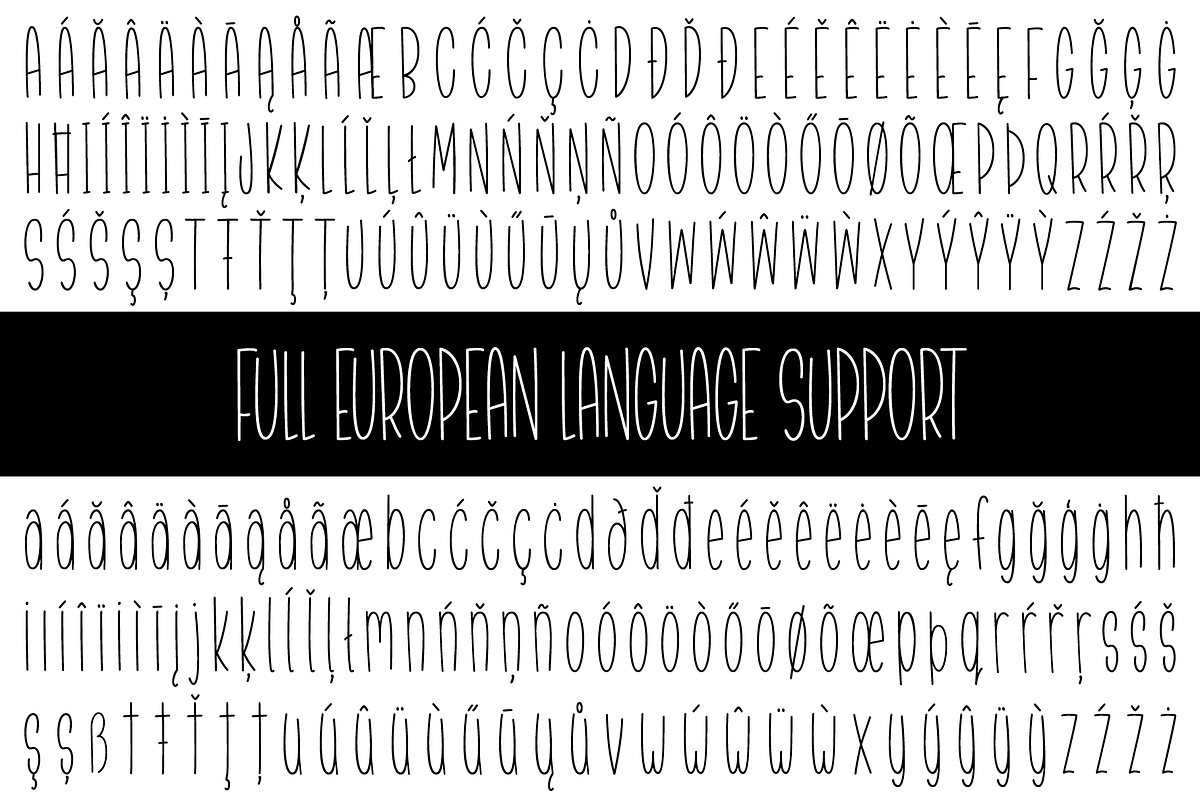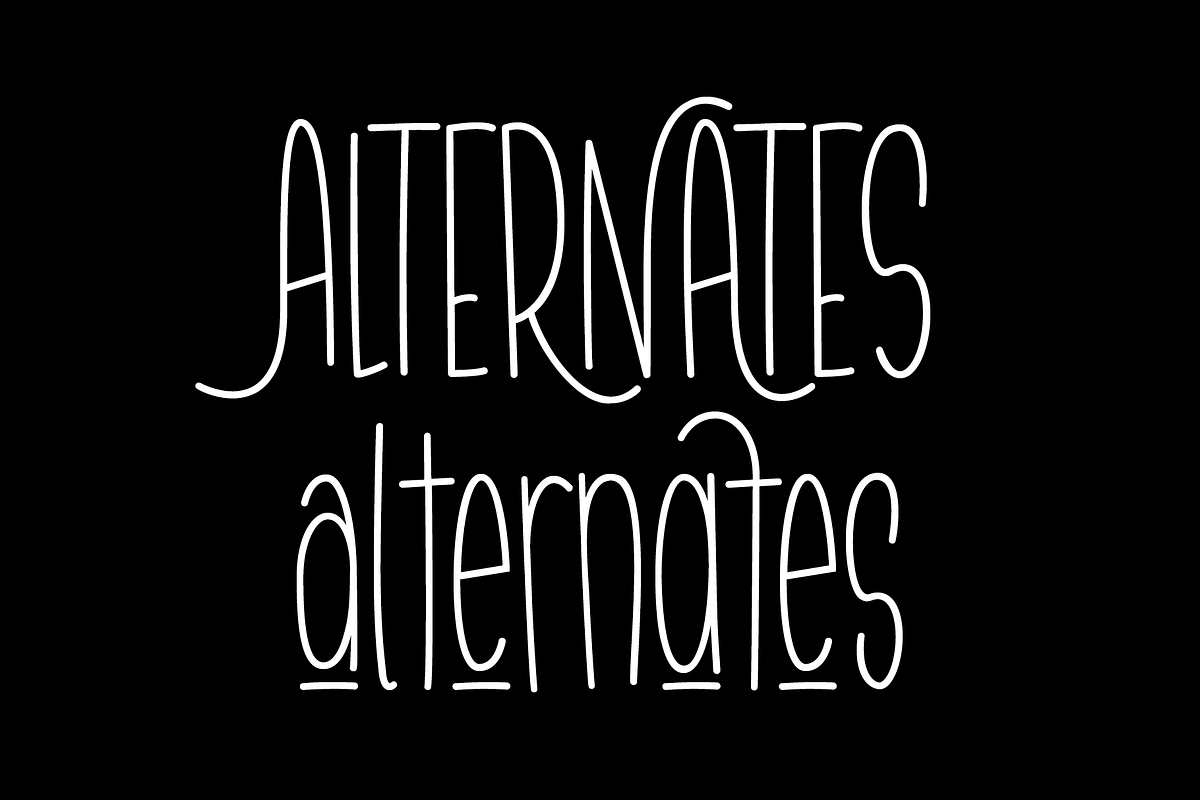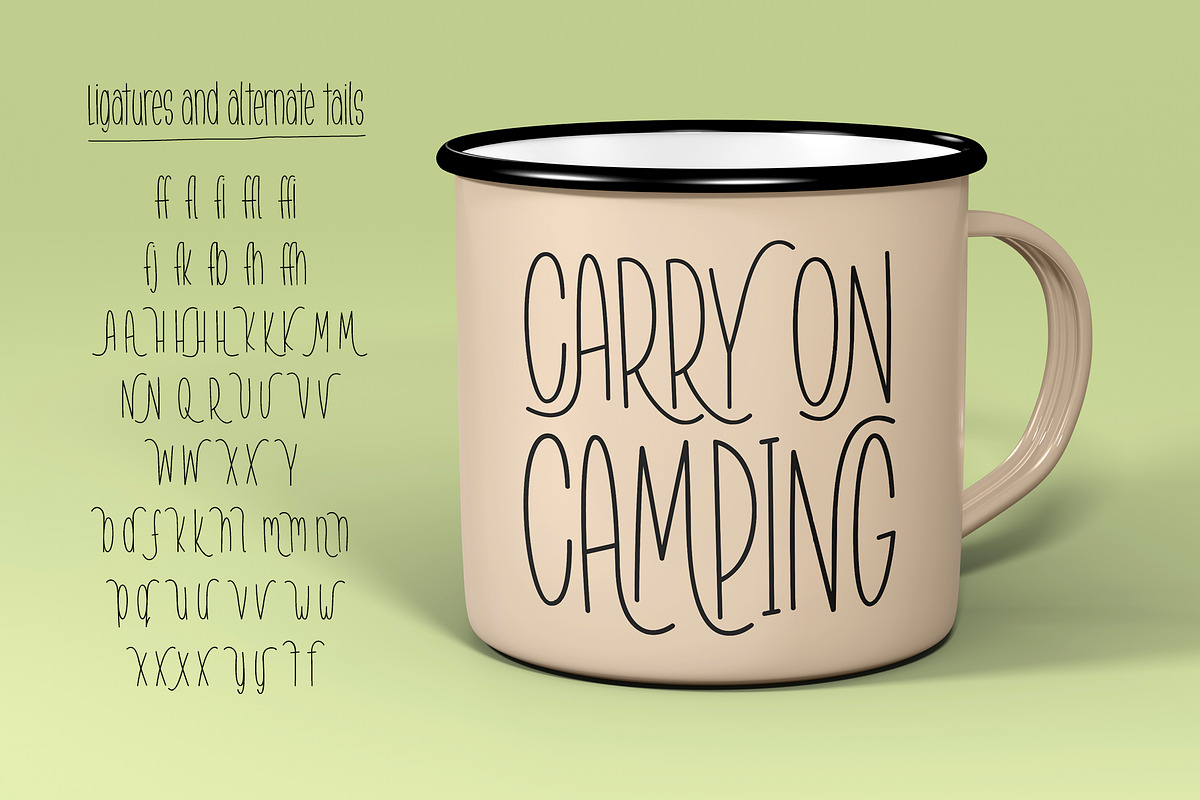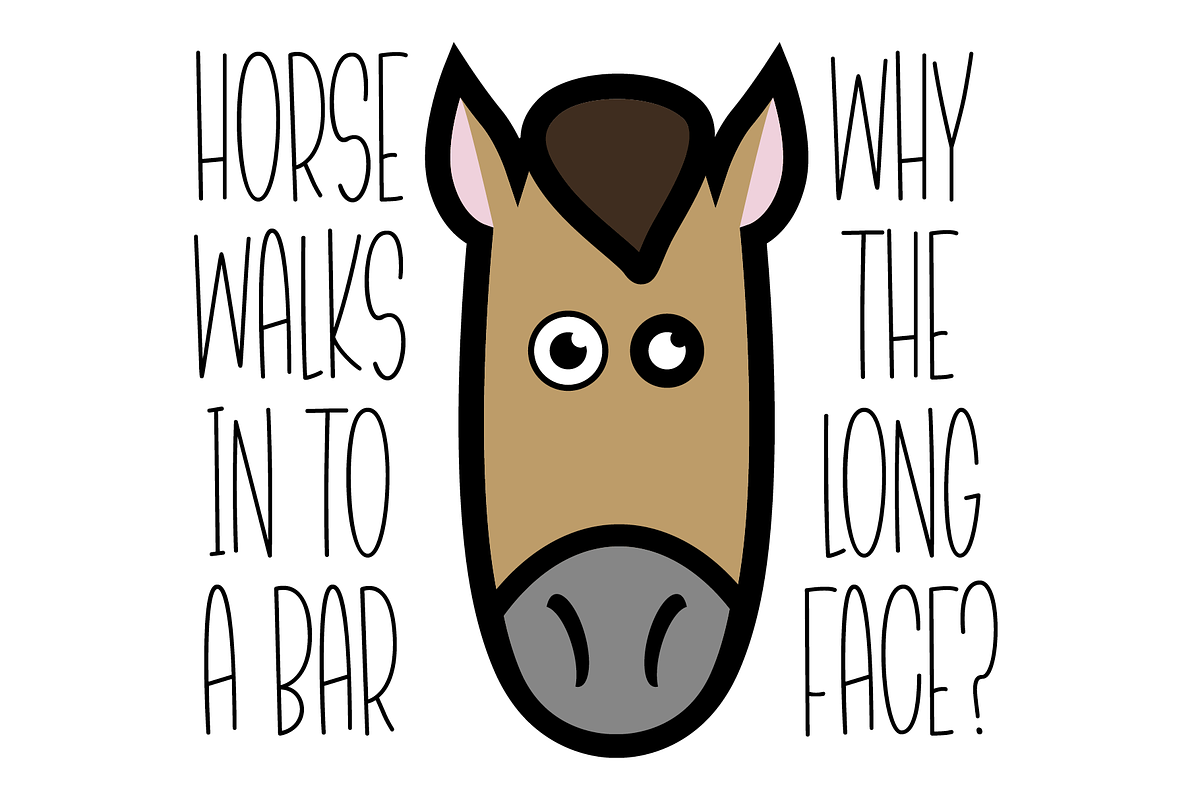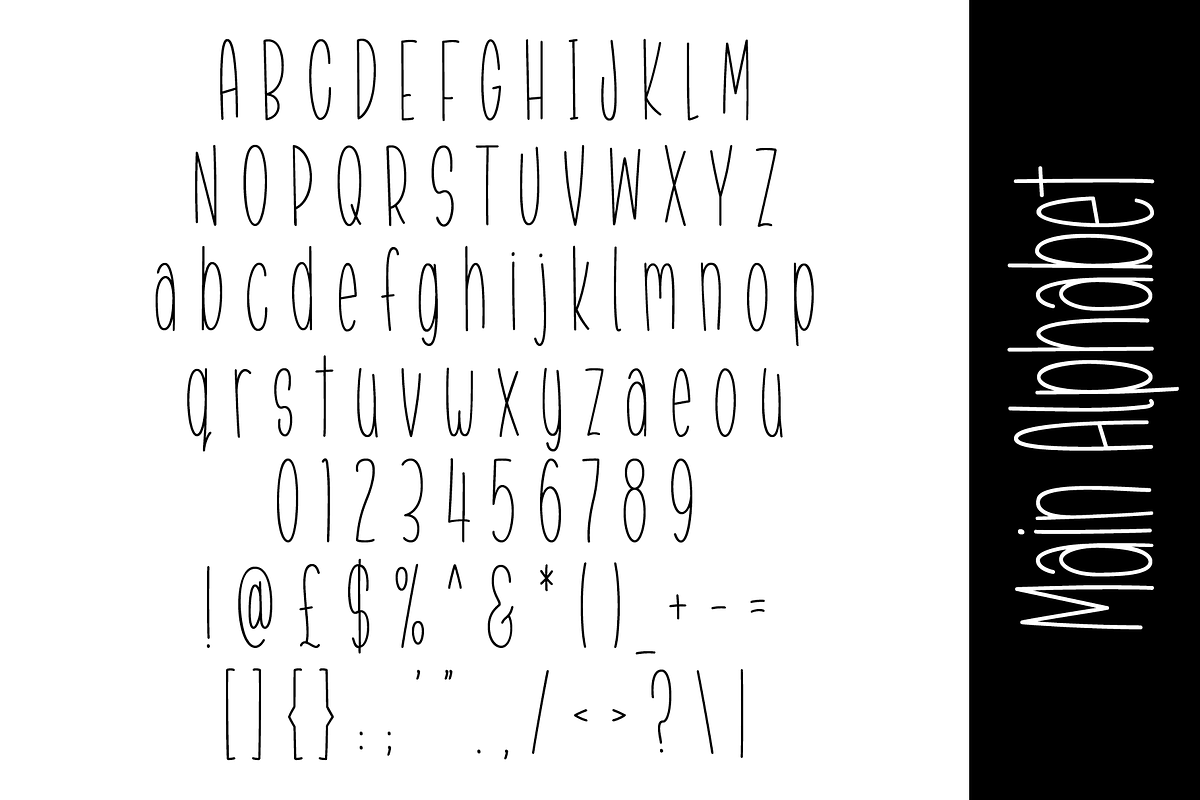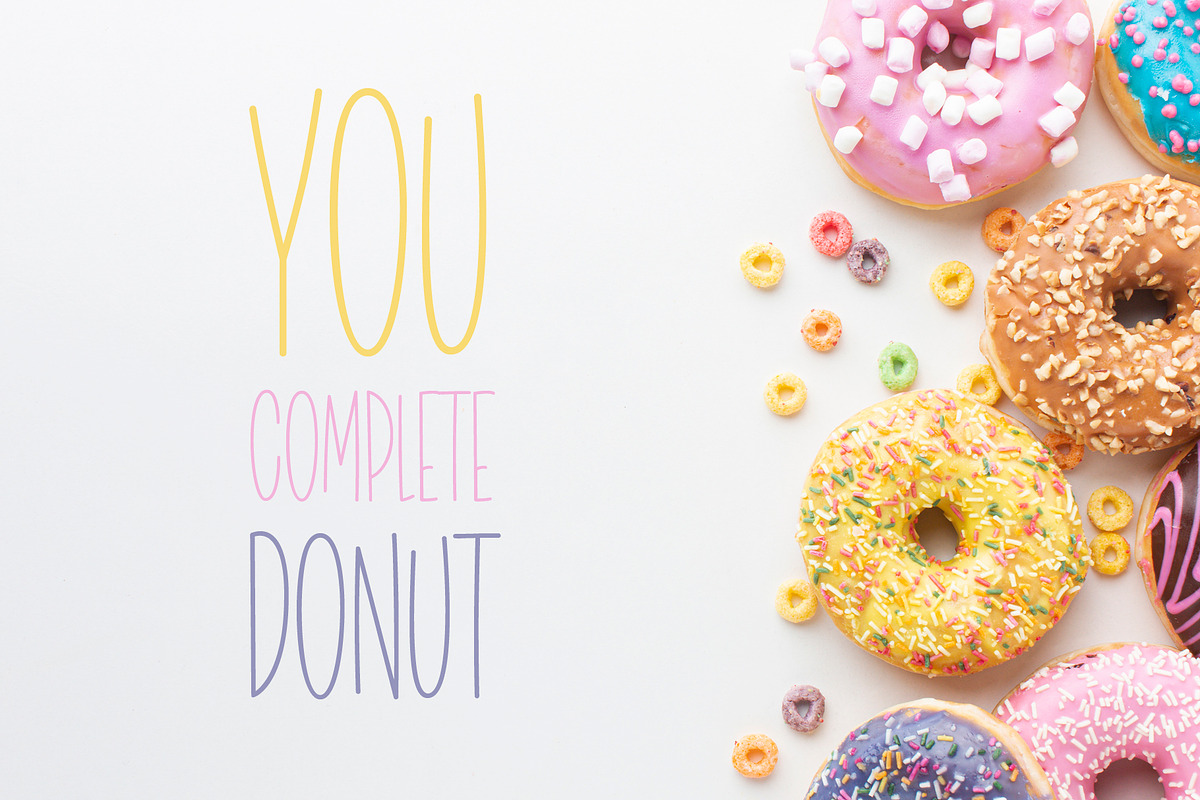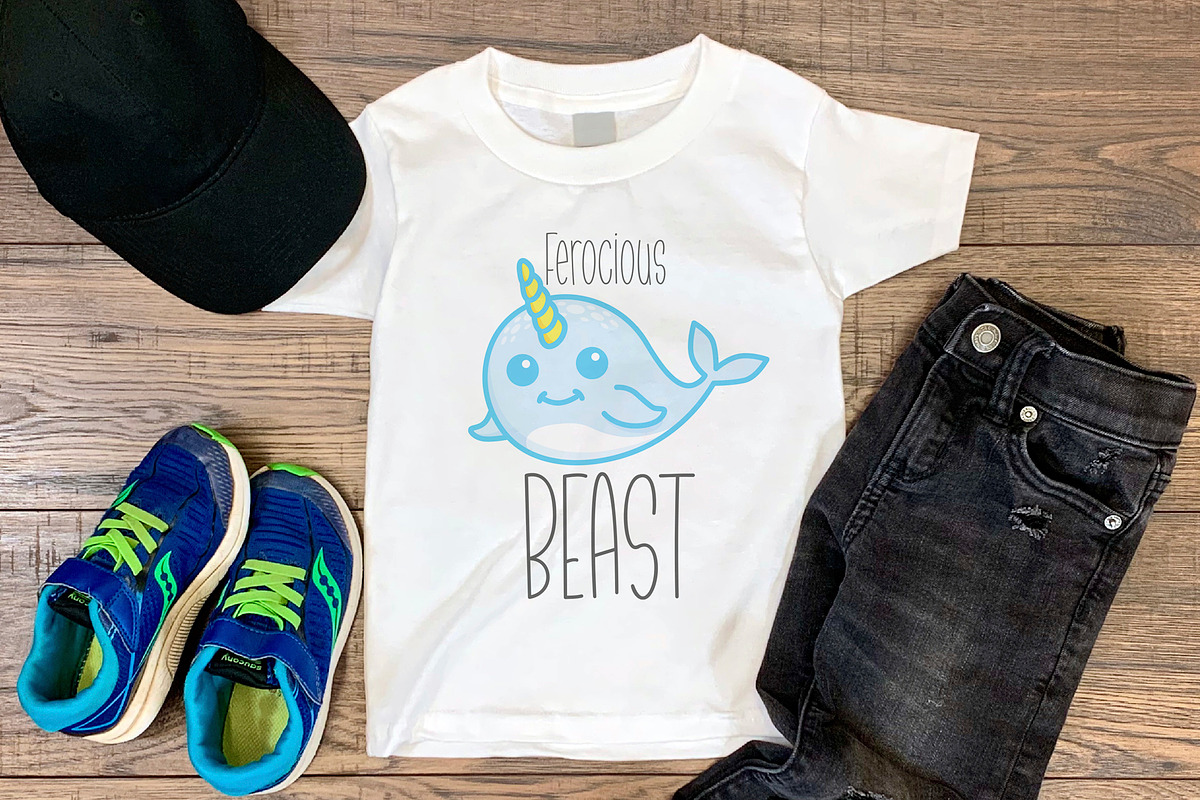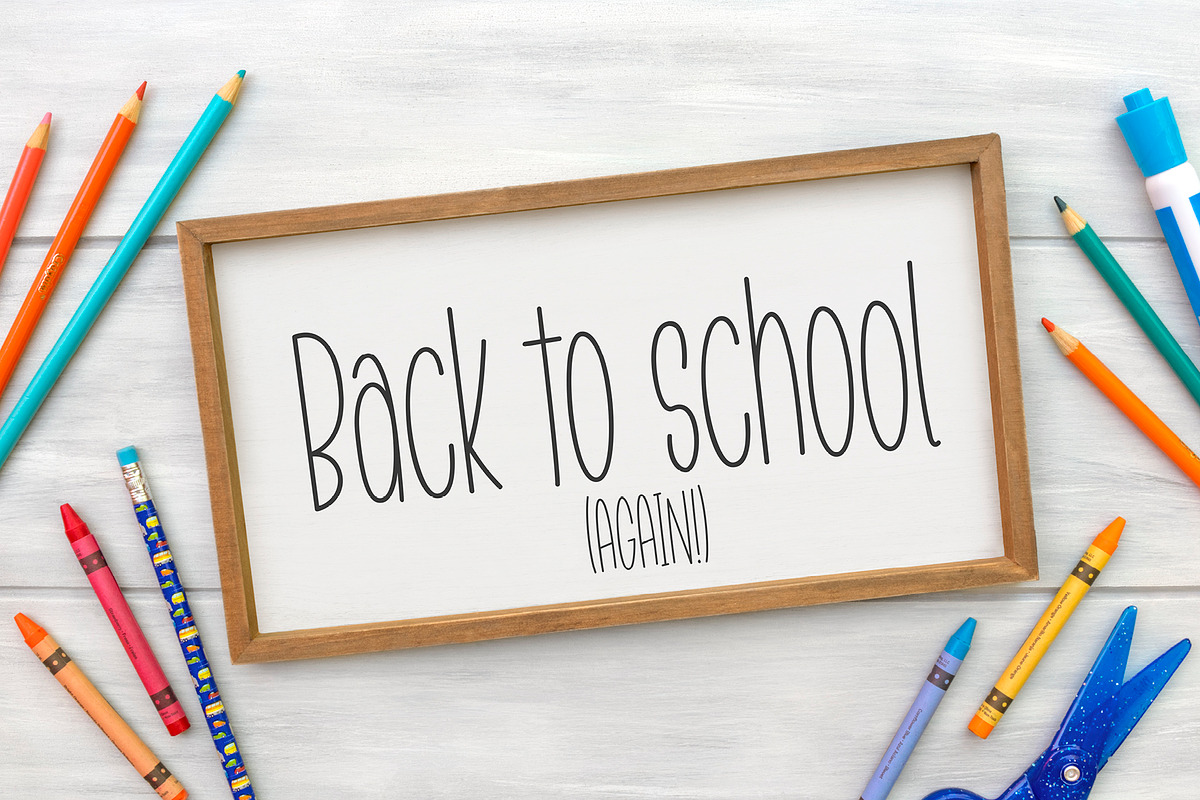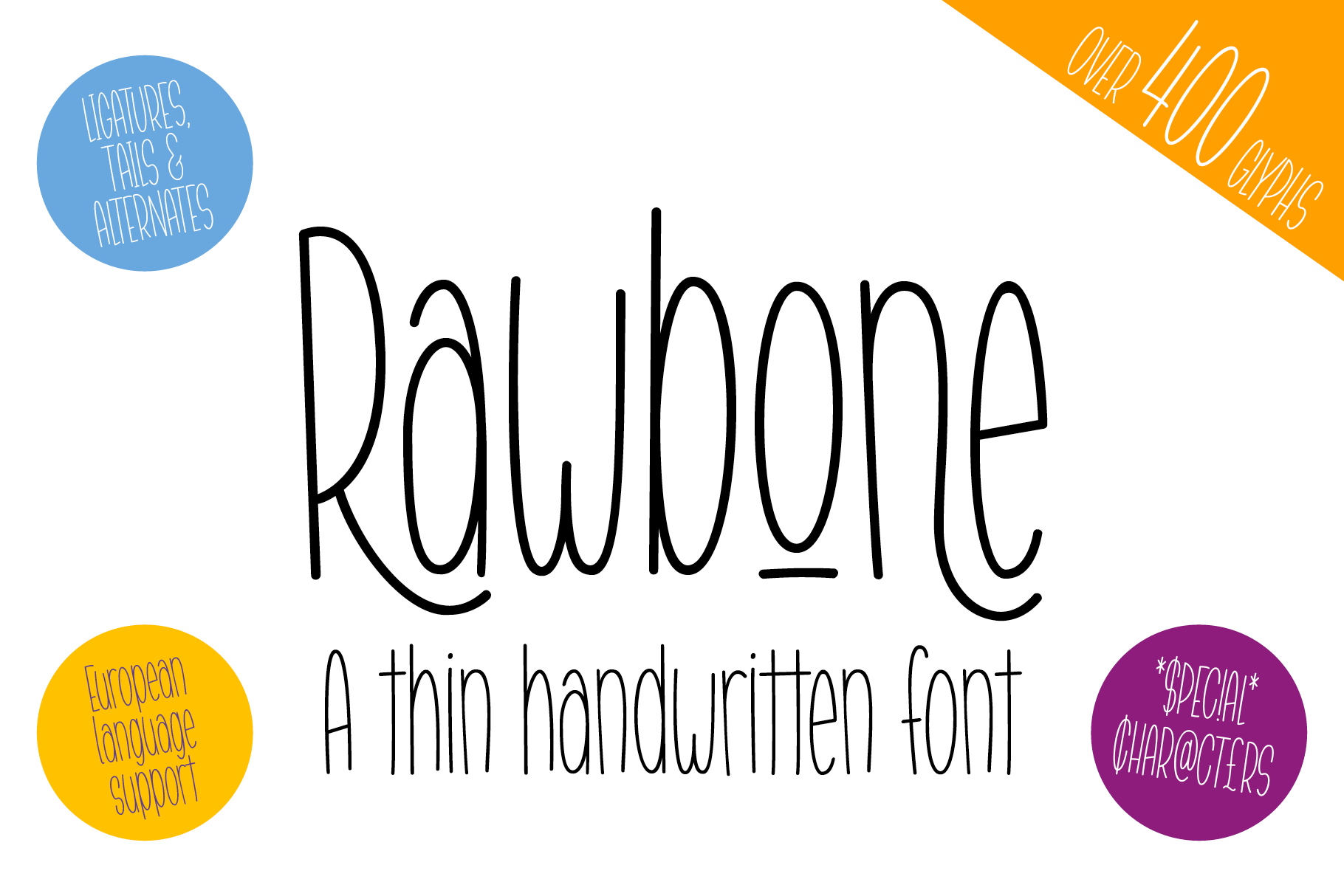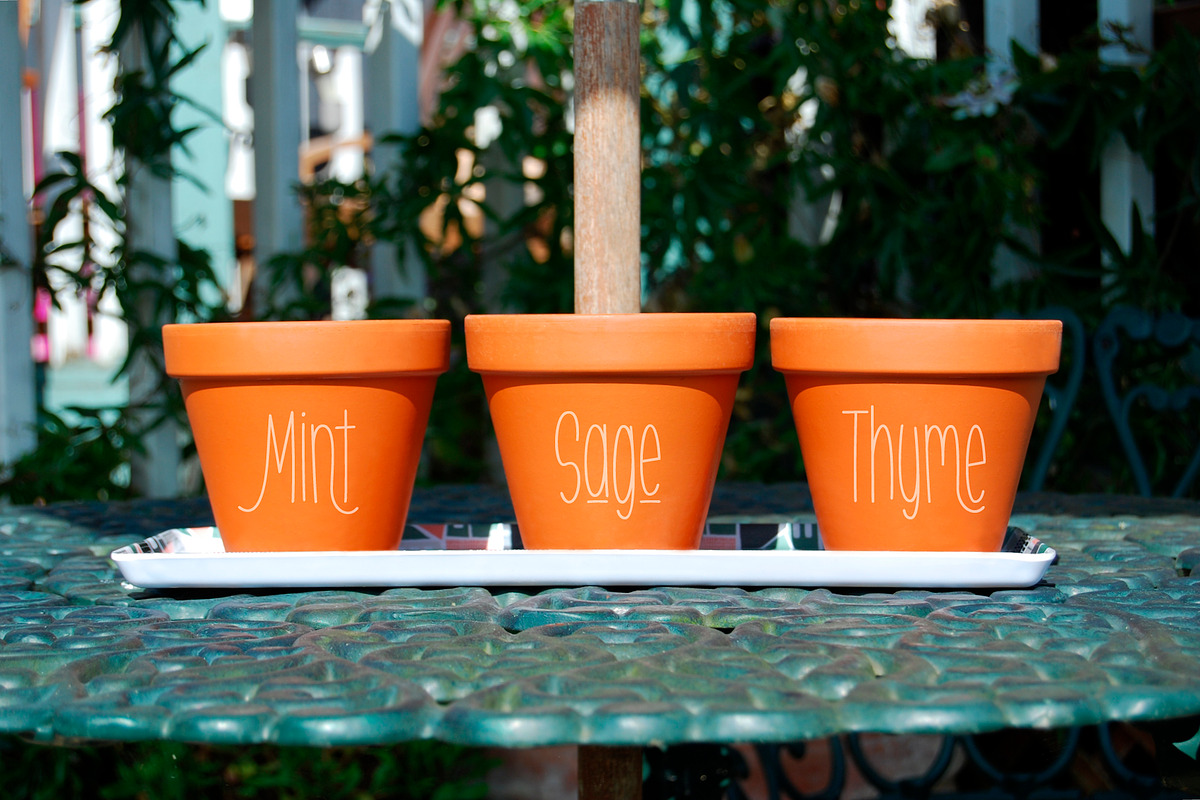
Rawbone fun handwritten font +extras
Rawbone is a thin, condensed handwritten font in a cute sans serif style. It contains a massive 400+ glyphs including many alternates and tails to accentuate your designs.
Great for all merchandising and products the smooth, clean nodes make this ideal for crafting and crafters. It also looks great used for branding, logos and in traditional print and packaging design. The simplicity of the font means that it works equally well as a headline font or as body copy.
The added tails make this a bit different from the standard handwritten farmhouse font and add a unique character all of it's own for you to add a personalised touch to your next project!
Contains all standard West, Central and South Eastern European language support.